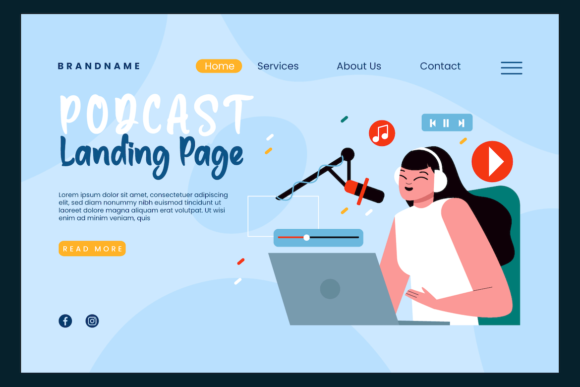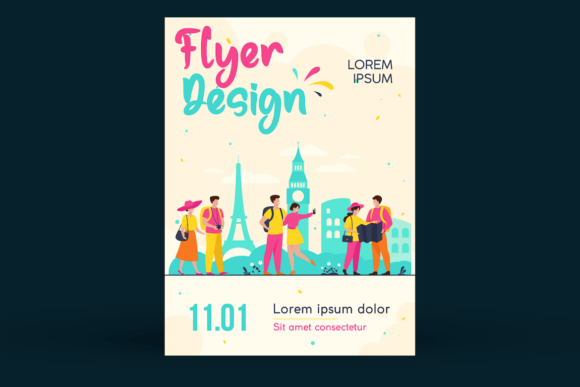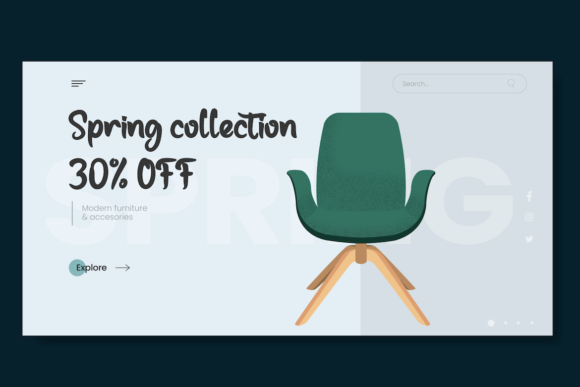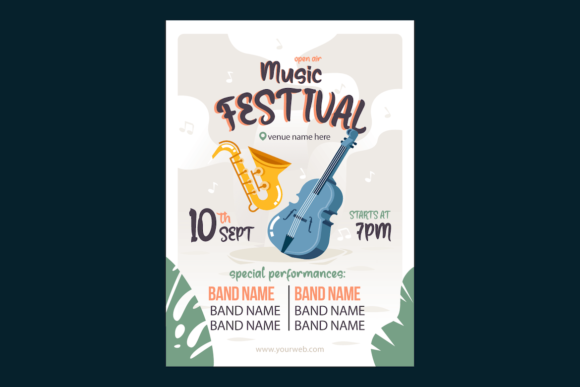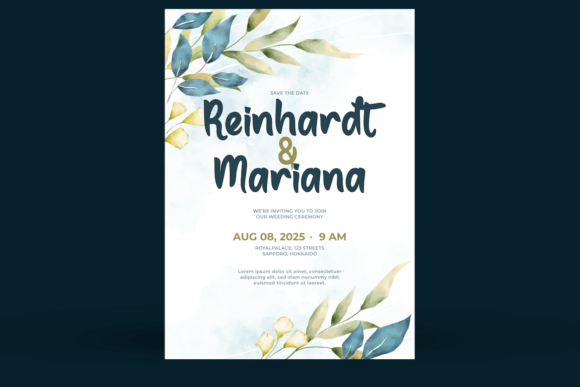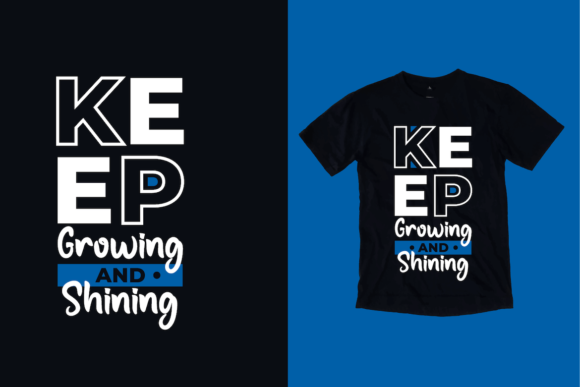
Introduction to Kashering Font
Have you ever been working on a creative project, pouring your heart and soul into every detail, only to realize that the right font is missing to tie everything together? That’s exactly what happened to me last week while designing a digital presentation for a client. I was searching for the perfect handwritten font to give it that personal touch, and that’s when I stumbled upon the beautiful Kashering Font.
This fresh and stylish paint brushed handwritten font is a game-changer for designers, offering a unique touch to any project. With its high-quality design and transparent background, it’s perfect for crafting, digital designing, presentations, and even greeting cards making. Whether you’re a seasoned designer or a creative enthusiast, the Kashering Font is an invaluable resource to have in your arsenal, and the best part? It’s available for free download, making it an accessible design resource for everyone.
Kashering Font
- High-quality design resource featuring a unique, hand-drawn style
- Transparent background for easy layering and customization in design applications
- Size: 256 glyphs, ensuring a comprehensive character set for diverse creative projects
- Unique characteristics: Distressed, vintage-inspired aesthetic with subtle texture and imperfections
Honest Review: Kashering Font
I recently had the chance to work with the Kashering Font for a creative project, and I must say it’s been a game-changer. This font is a high-quality design resource that’s perfect for any project that requires a clean and elegant look.
- ✨ It has a transparent background, allowing for seamless integration with any design element.
- ✨ The font is highly versatile and can be used for a wide range of creative projects, from logos to brochures.
- ⚠️ The font may not be suitable for projects that require a bold or condensed font style.
- ⚠️ The font’s transparency may not work well with complex design elements or backgrounds.
Overall, I’m thoroughly impressed with the Kashering Font. It’s a high-quality design resource that’s perfect for designers looking for a clean and elegant look. I highly recommend it for any creative project.
Kashering Font
Kashering Font is a high-quality, free download design resource perfect for any creative project. With its transparent background, this versatile font is ideal for use in a variety of applications.
Tips for Getting the Most Out of Kashering Font
To get the most out of Kashering Font, use it in combination with other design elements to create a cohesive and visually appealing design. Experiment with different font sizes, colors, and styles to find the perfect balance for your project.
Kashering Font is ideal for use in various creative projects, including:
- Marketing materials and advertisements
- Graphic designs and digital art